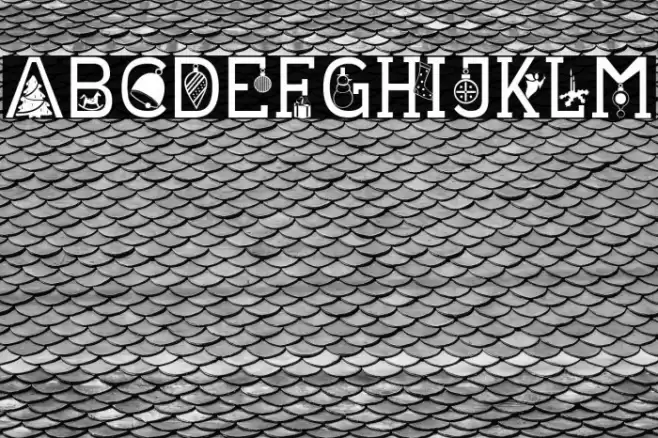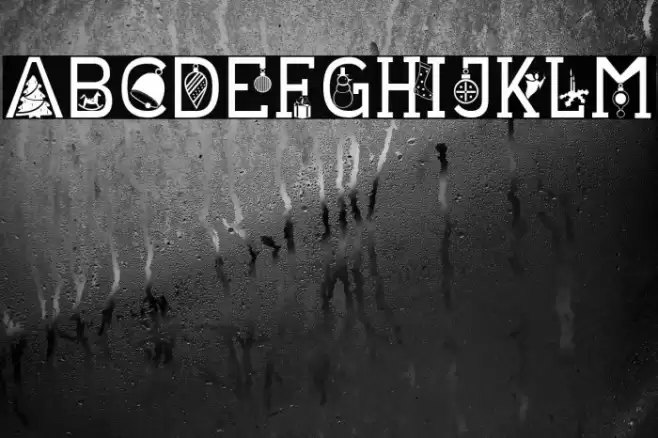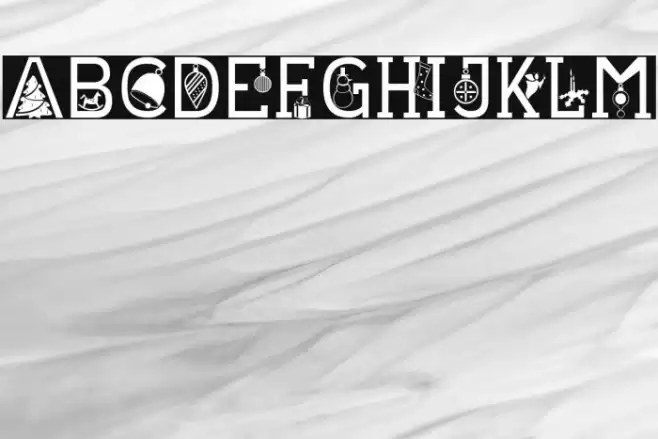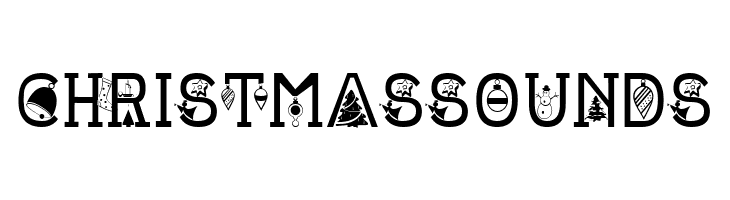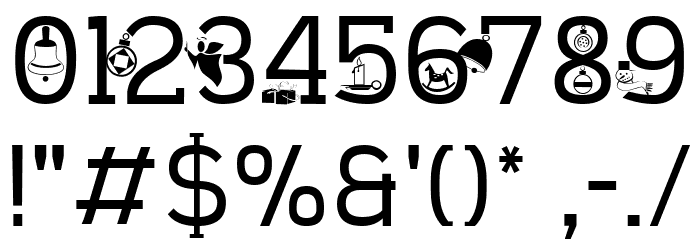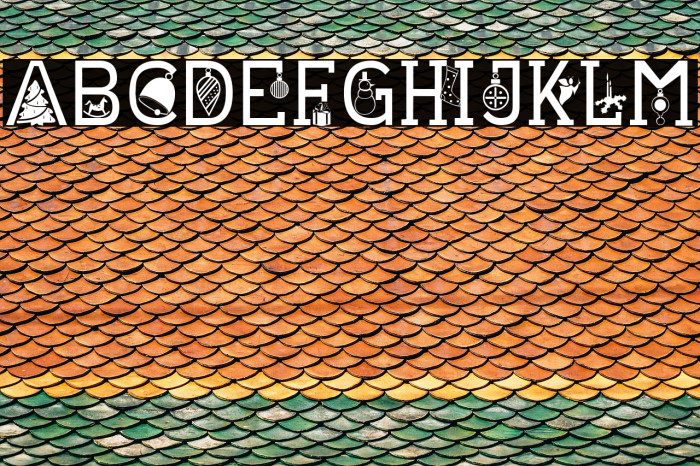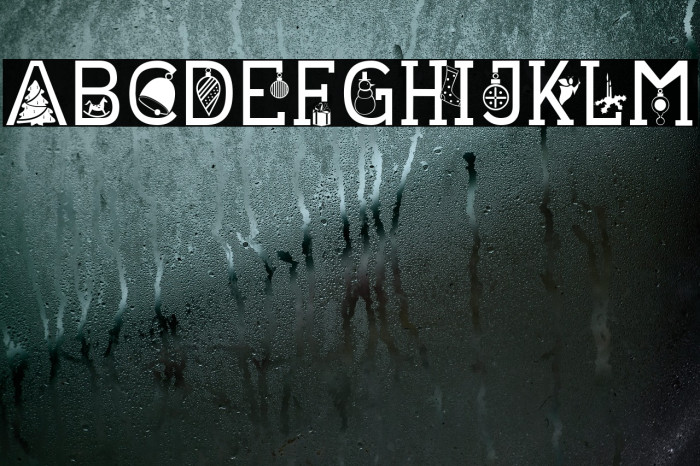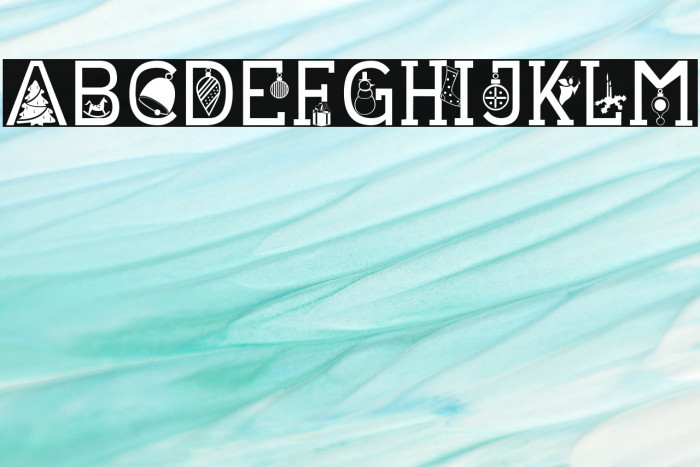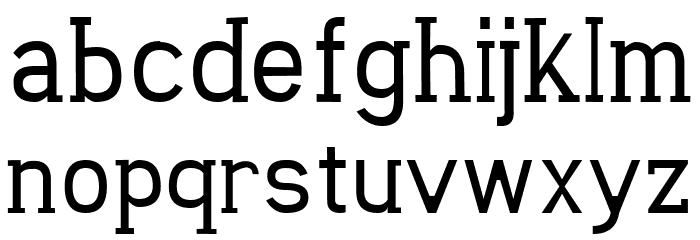
CHRISTMAS SOUNDS Font
CHRISTMAS SOUNDS Description
This festive typeface is infused with holiday cheer, featuring decorative elements integrated into each character. Uppercase letters are adorned with Christmas-themed icons such as ornaments, trees, and snowflakes, creating a playful and whimsical appearance. The lowercase letters maintain a clean and classic serif style, providing a balanced contrast to the ornate uppercase. Numbers and special characters also incorporate holiday motifs, enhancing the overall festive theme. This font is perfect for seasonal projects that require a touch of holiday spirit.
A festive typeface with Christmas-themed decorations in uppercase letters from Uncategorized fonts.
- Proposed Projects: Ideal for holiday greeting cards, festive banners, Christmas event invitations, and seasonal advertisements.